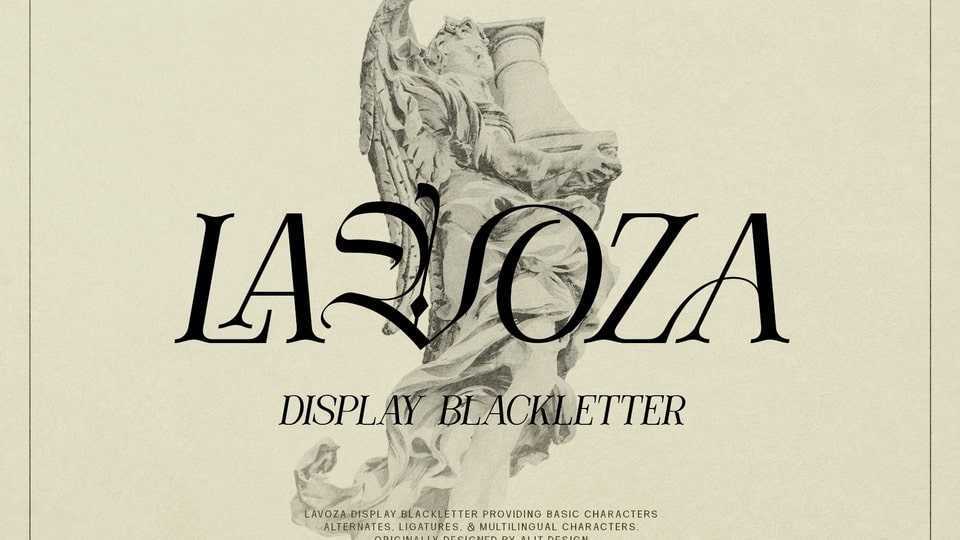
Download Lavoza font, a sophisticated display typeface designed by combining a slant blackletter with a classic serif. Lavoza font is inspired by a classic roman design mixed with modern elements according to current trends.